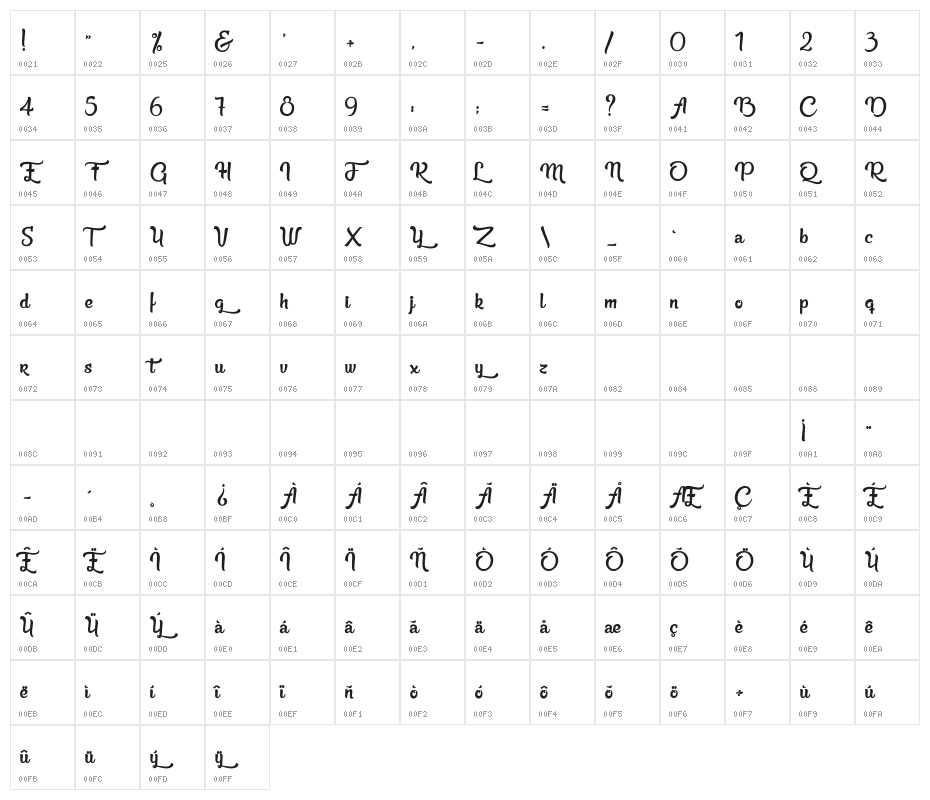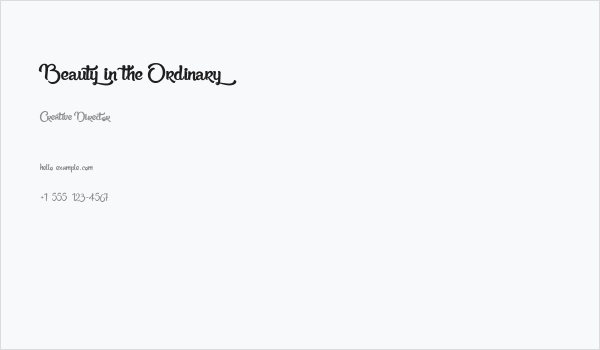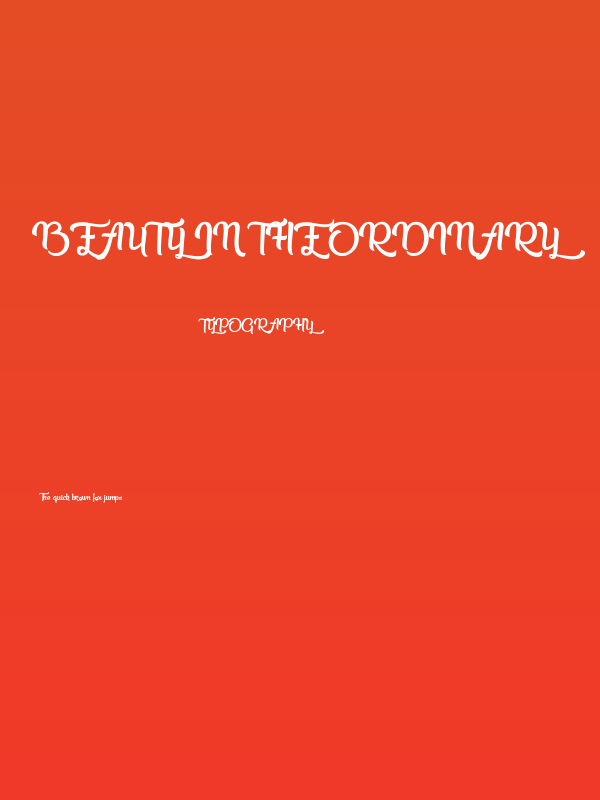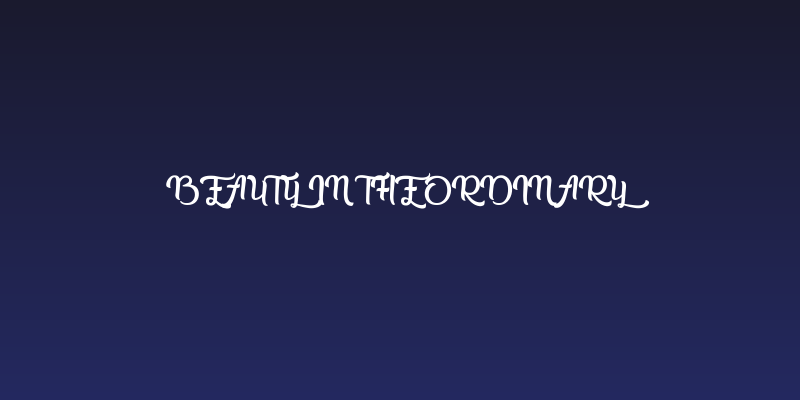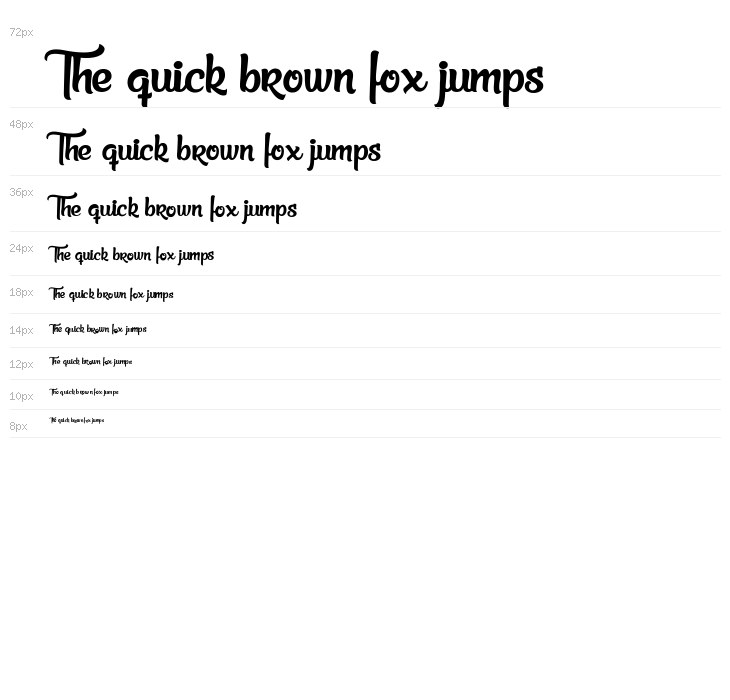
Beauty in the Ordinary Font
Beauty in the Ordinary Description
This font exudes a playful and artistic flair, characterized by its flowing, cursive style. The uppercase letters are bold and dramatic, with sweeping curves and flourishes that give them a sense of movement and elegance. The lowercase letters maintain this fluidity, with a slightly more compact form that enhances readability. Numbers and special characters are designed with the same attention to detail, ensuring a cohesive look across all elements. The overall impression is one of creativity and expressiveness, making it ideal for projects that require a personal touch.
Use CaseLogos, Headlines, Invitations
Proposed ProjectsIdeal for wedding invitations, greeting cards, artistic branding, and creative posters.